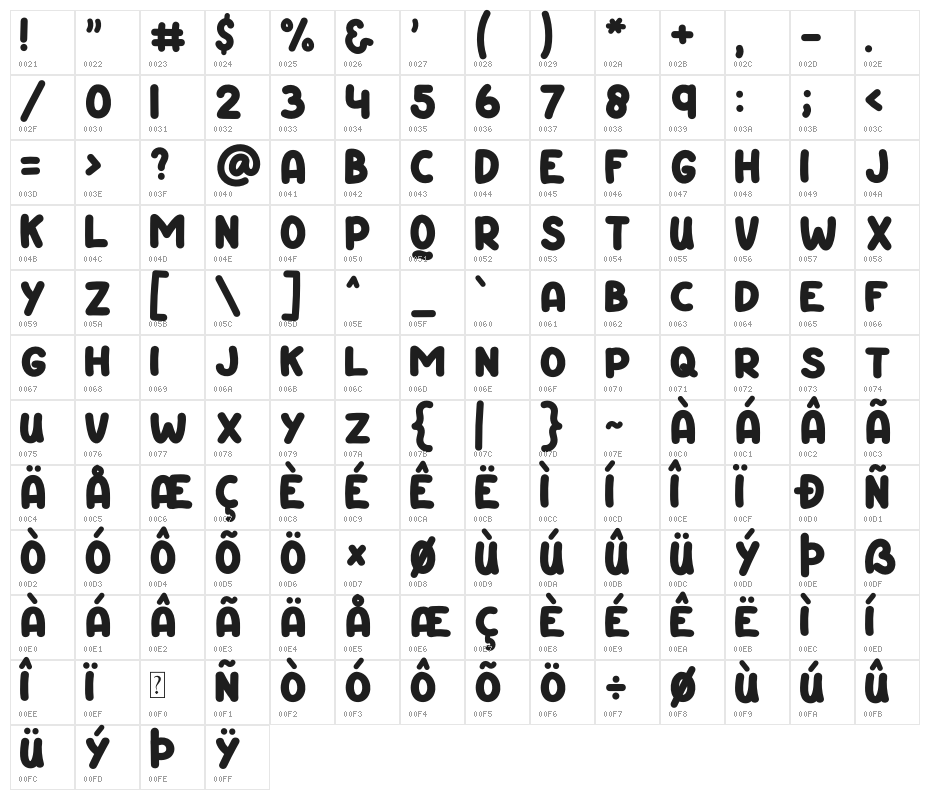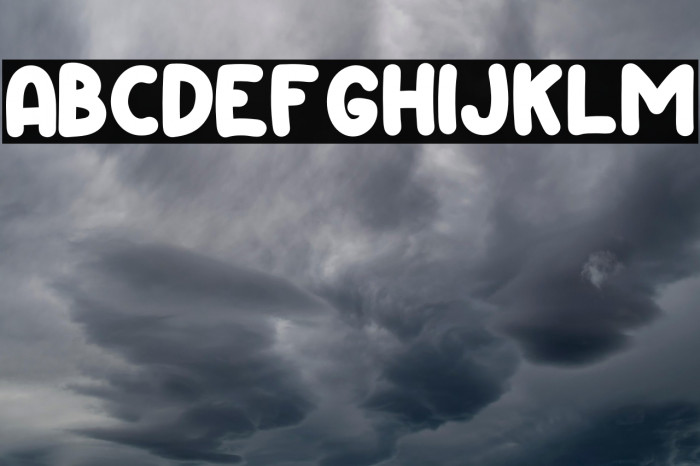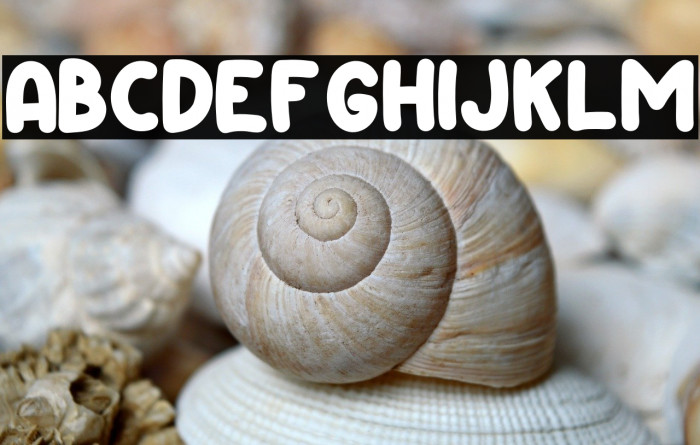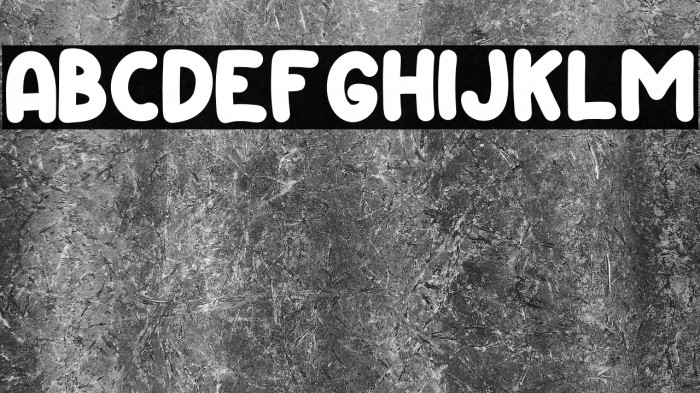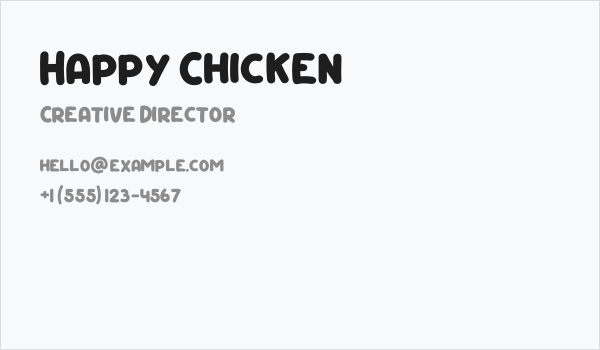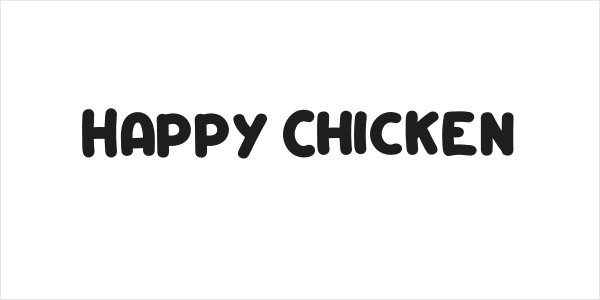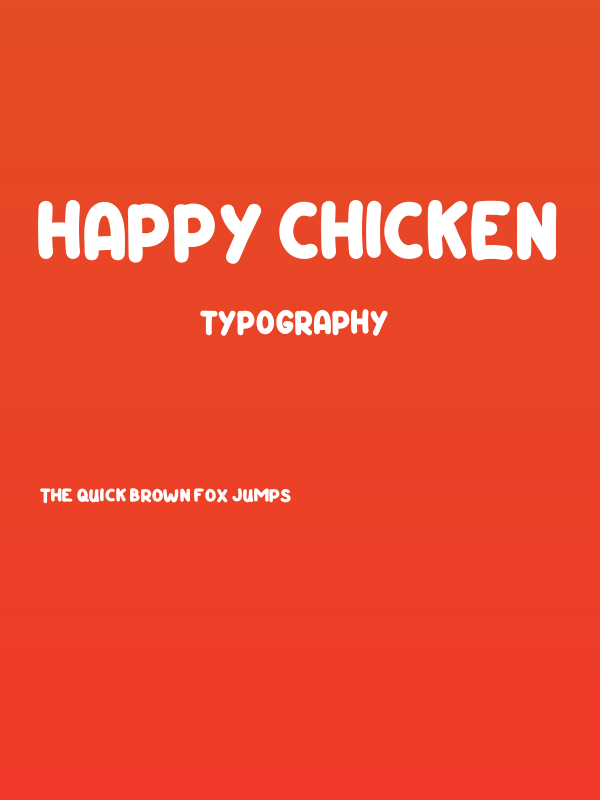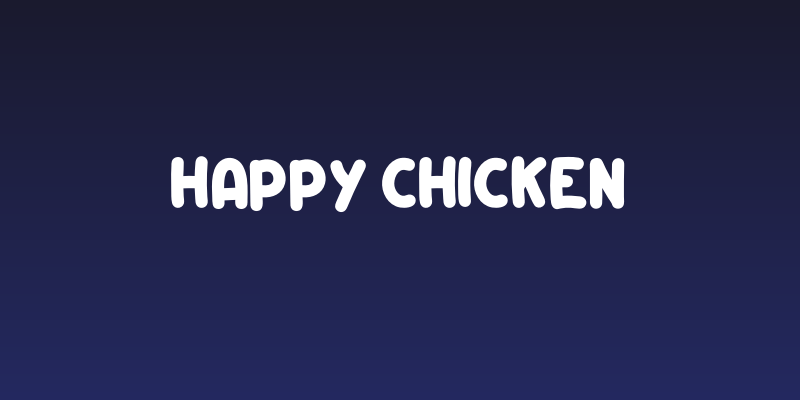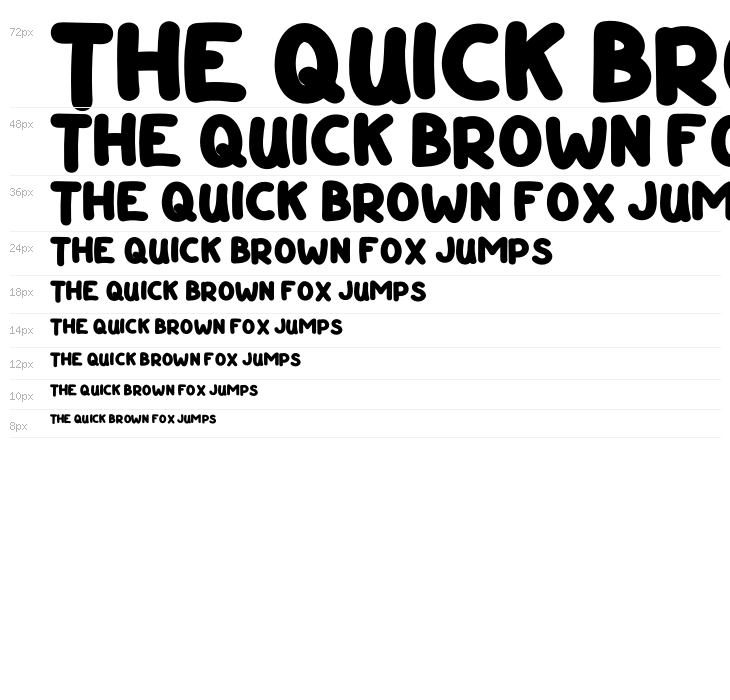
Happy Chicken Font
Happy Chicken Description
This font features a playful and bold design with rounded edges and a bubbly appearance. Each character is crafted with a consistent thickness, giving it a cohesive and uniform look. The letters are slightly condensed, which adds to the compact and friendly feel of the typeface. The numbers and special characters maintain the same playful style, making it suitable for a variety of creative applications. The overall aesthetic is approachable and fun, making it ideal for projects that require a lighthearted and engaging tone.
Overall StylePlayful
Proposed ProjectsIdeal for children's books, playful branding, party invitations, and casual posters.